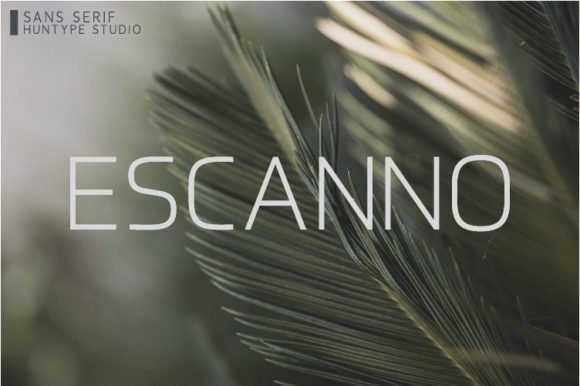
Have you ever found yourself scrolling through your favorite design inspiration boards, only to stumble upon a beautiful, clean layout that immediately sparks a creative idea? That’s exactly what happened to me when I discovered the Escanno Font.
Escanno Font is a simple yet elegant sans serif font that’s perfect for designers looking to add a touch of sophistication to their projects. Whether you’re working on a formal brochure or a casual social media post, this versatile font is sure to elevate your design game. Its clean and beautiful arrangement of letters makes it a valuable asset for any designer, and its ease of use makes it a joy to work with.
With Escanno Font, you can create stunning designs that exude professionalism and style, without sacrificing any of the creative freedom you need to bring your ideas to life.
Escanno Font Key Features
- Font Family: Escanno is a modern sans-serif font family designed for digital use.
- Font Size: The font family includes 12 font weights, ranging from 100 to 900, and 5 font styles, including Regular, Italic, Bold, Bold Italic, and Condensed.
- Unique Characteristics: Escanno Font features a unique blend of geometric and humanistic elements, resulting in a clean, modern, and highly legible design.
- Language Support: Escanno Font supports a wide range of languages, including Latin, Cyrillic, and Greek scripts.
Escanno Font Review
First of all, I want to say that I’m impressed with the modern and sleek feel of the Escanno Font. It’s perfect for contemporary designs and catches the eye immediately. ✨ The font has a clean and minimalist design, making it easy to read and understand. It’s also highly legible, even at smaller font sizes.
- Wide range of weights and styles to choose from
- Perfect for modern and contemporary designs
- Easy to read and understand
- Highly legible, even at smaller font sizes
However, there are some limitations to the Escanno Font. ⚠️ One of the main issues is that it may not be suitable for more traditional or classic designs. It’s a bit too modern and edgy, and may not fit with the aesthetic of older projects. Additionally, some of the weights and styles may feel a bit too similar to each other, making it difficult to choose the right one for a particular project.
Overall, I would say that the Escanno Font is a great choice for modern and contemporary designs. While it may have some limitations, its clean and minimalist design make it a great addition to any design project. With a wide range of weights and styles to choose from, you’re sure to find the perfect fit for your needs.
Escanno Font Practical Application Guide
Tips for Getting the Most Out of Escanno Font
To maximize the effectiveness of Escanno Font, use it for headings, titles, and other prominent text elements. Experiment with different font sizes and styles to create visual hierarchy and emphasis.
Escanno Font is suitable for various design applications, including:
- Print design and advertising
- Infographics and data visualization
Alternatives to Escanno Font
Montserrat is a sans-serif typeface designed by Julieta Ulanovsky. It is a popular alternative to Escanno Font due to its geometric and modern design. Montserrat is ideal for digital products, logos, and headings.
Comparison to Escanno Font: Montserrat is more geometric and has a stronger x-height, making it more suitable for digital use. Escanno Font has a more rounded feel and is better suited for print materials.
Open Sans is a sans-serif typeface designed by Steve Matteson. It is a clean and modern font that is highly legible and suitable for body text. Open Sans is a good alternative to Escanno Font for digital projects that require a clear and readable font.
What is the recommended usage for the Escanno Font?
The Escanno Font is designed for body text and titles, and is suitable for use in digital and print media. It is particularly well-suited for use in editorial and publishing contexts, where clear and readable typography is essential. The font is also suitable for use in branding and identity projects, where a unique and distinctive visual style is required.